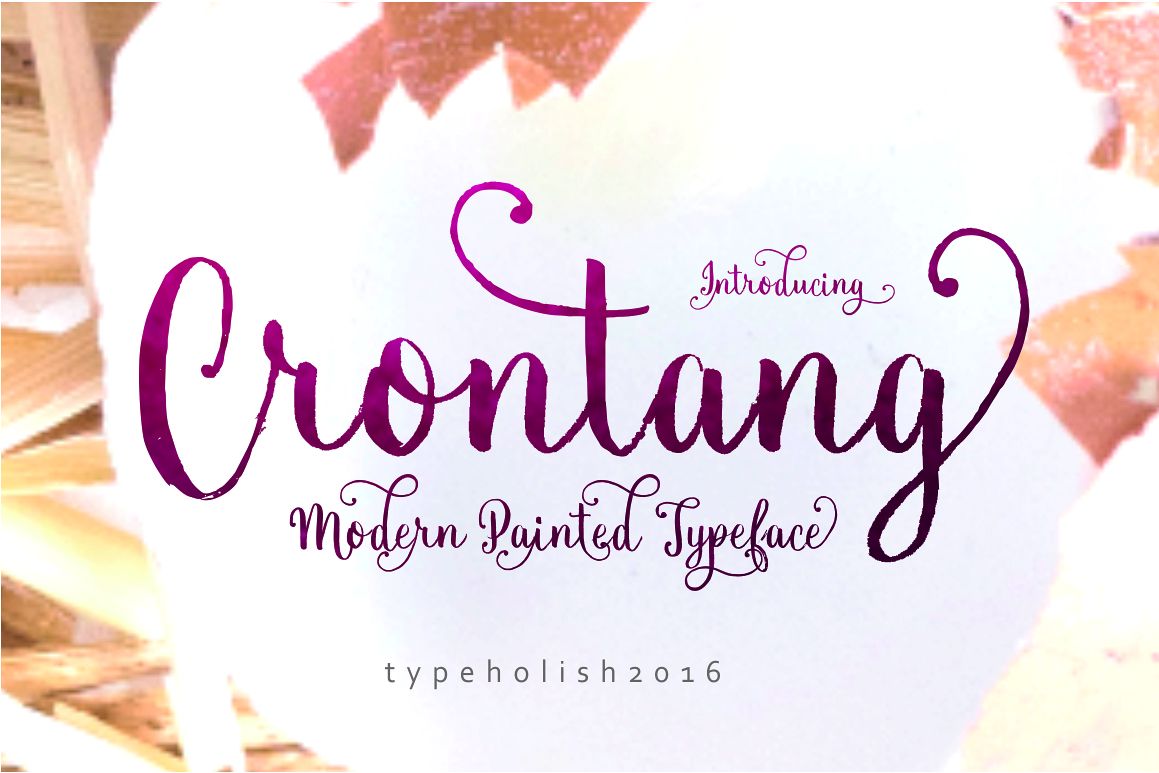
Crontang
Crontang.
is a handpainted and it has a modern and unique forms of calligraphy, the writing style is very natural.
Stylistic Alternates
Ligatures
Numeral
Punctuation